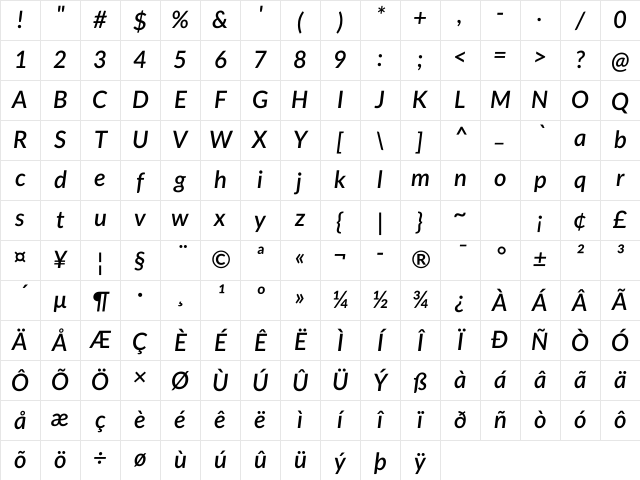
LatoLatin Semibold is a composed and adaptable typeface that performs quietly and consistently across a wide range of design contexts. The slanted form adds forward momentum and visual energy. Its bold stroke weight gives it real presence on the page.
Pro Tip: Use LatoLatin Semibold for emphasis, pull quotes, and subheadings where its slanted energy can add rhythm to the layout.